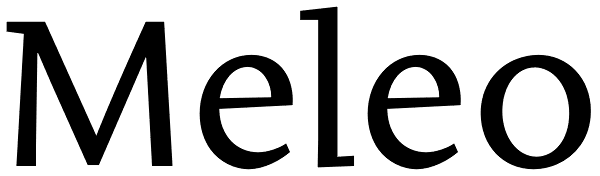
Meleo
Meleo is a semiserif consisting of 10 fonts with a few original quirks but still very legible at both text and display sizes. Since its conception, the aim was a balance of uniqueness and functionality. The typeface owes its energy to the slight...